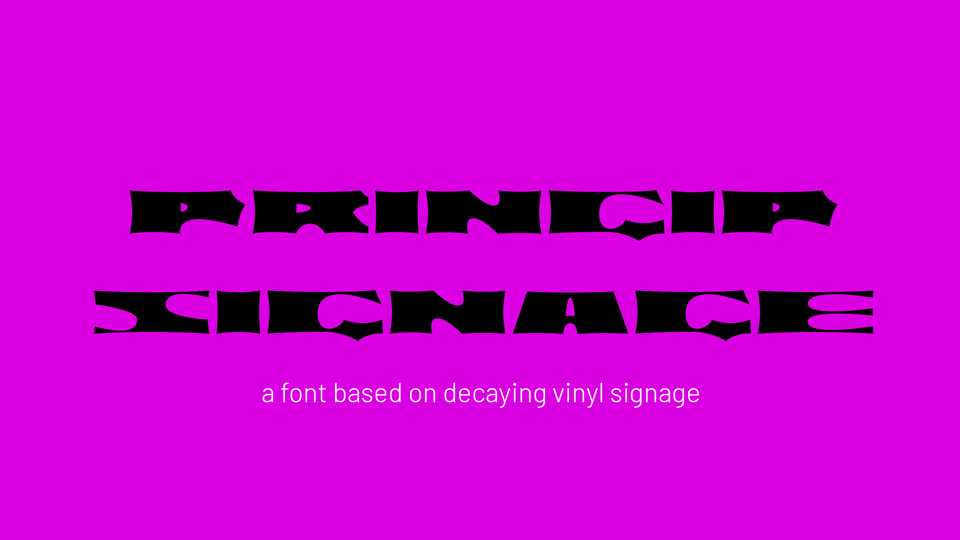
Download Pringip Signage font, a bold display typeface in one weight based on decaying vinyl signage. Pringip Signage is ideal for loud messages and eye-catching posters.